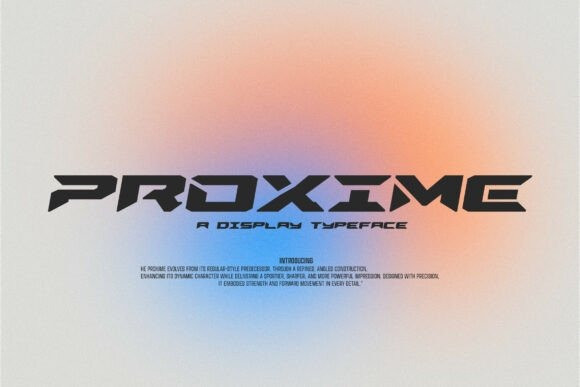
Proxime Oblique Font
Proxime Oblique Font a refined display typeface built for speed and power. Evolving from a sharp, angled construction, this font embodies a sportier, more dynamic character than its predecessors. Every letterform is designed with mathematical precision, featuring aggressive horizontal weights and aerodynamic cutouts that suggest constant motion.
Proxime is the definitive choice for automotive branding, gaming interfaces, high-tech logo marks, and sports apparel. Whether you are designing for a futuristic startup or an extreme sports event, this font delivers a powerful impression of strength and cutting-edge technology.